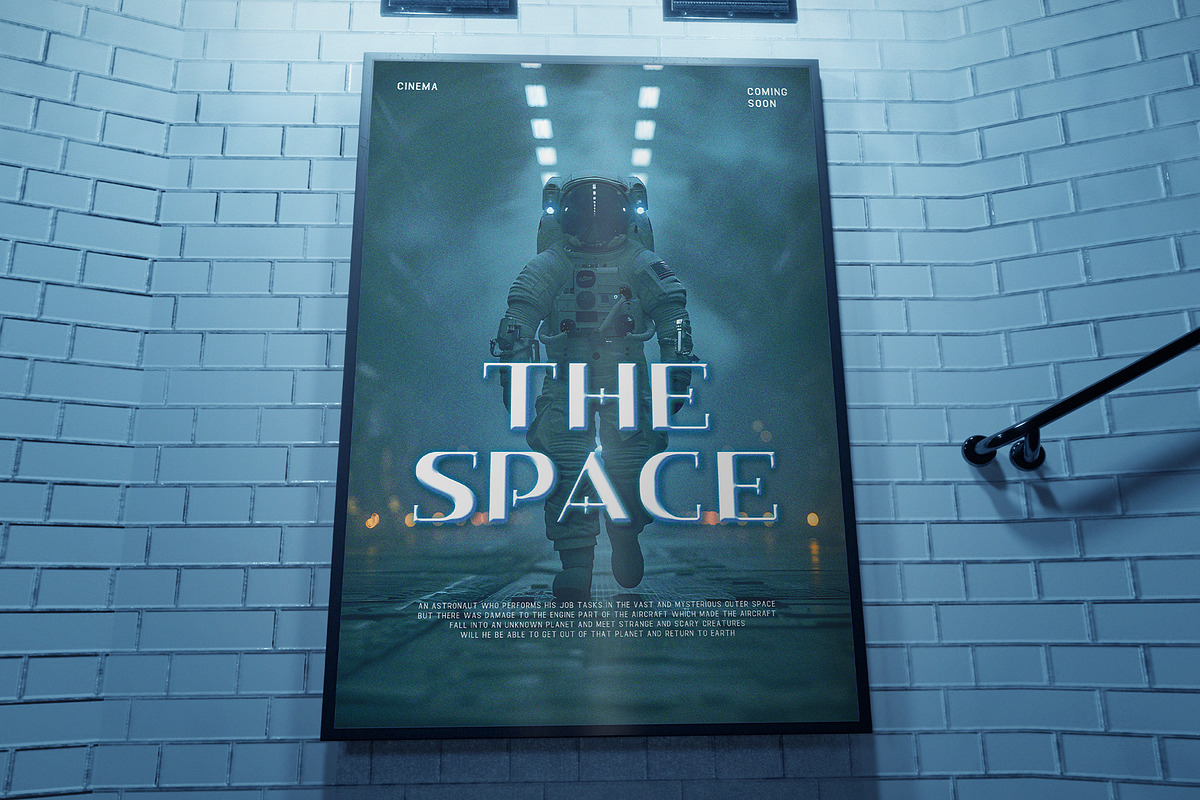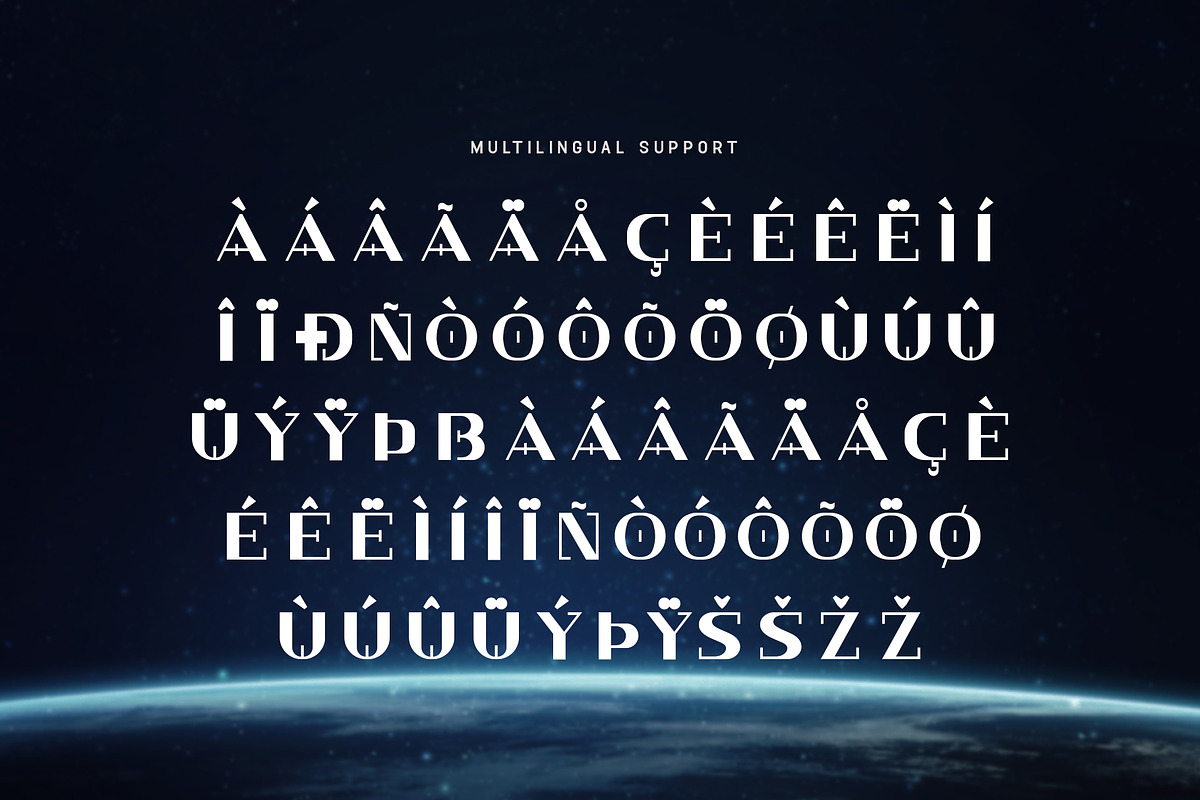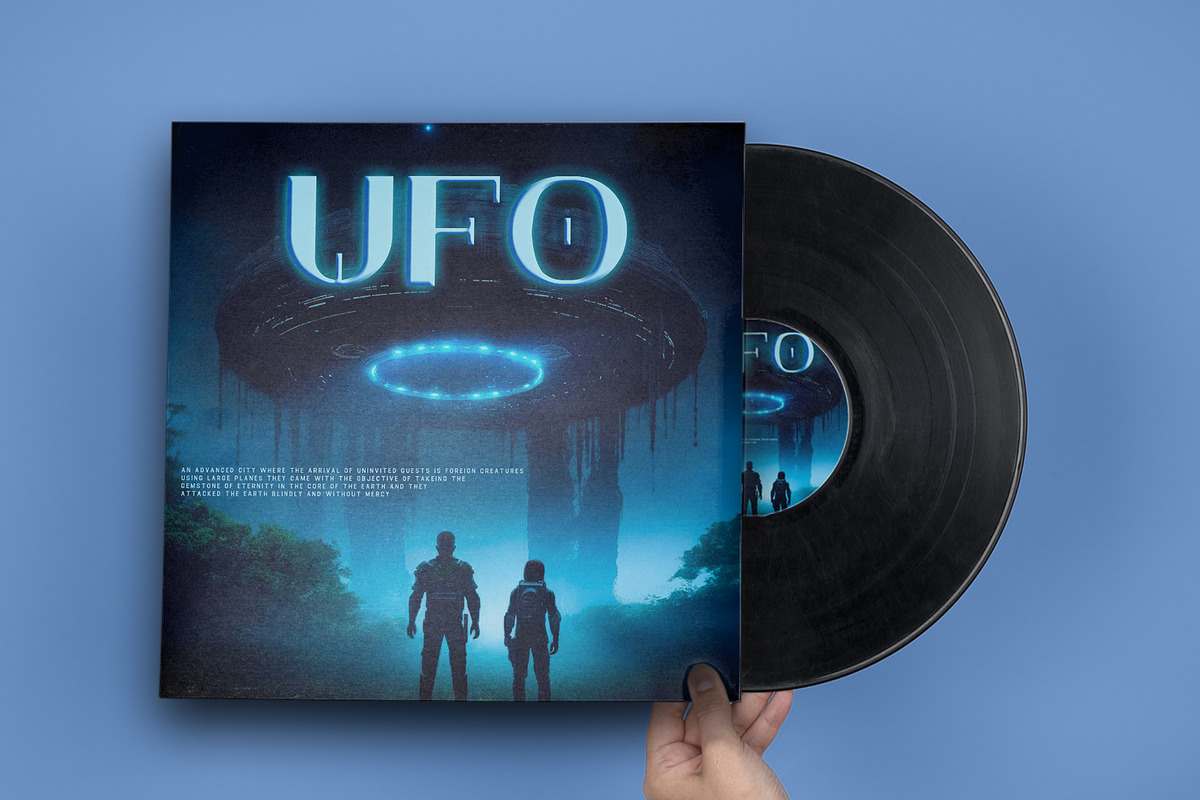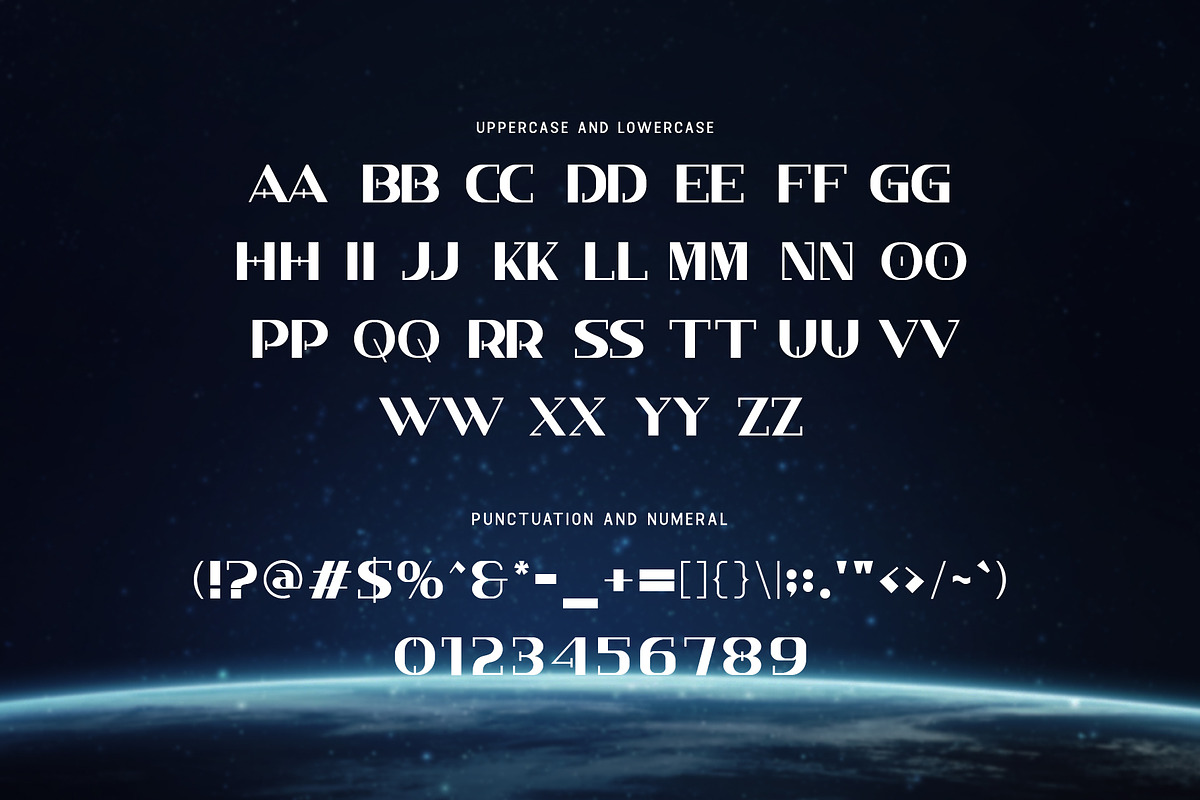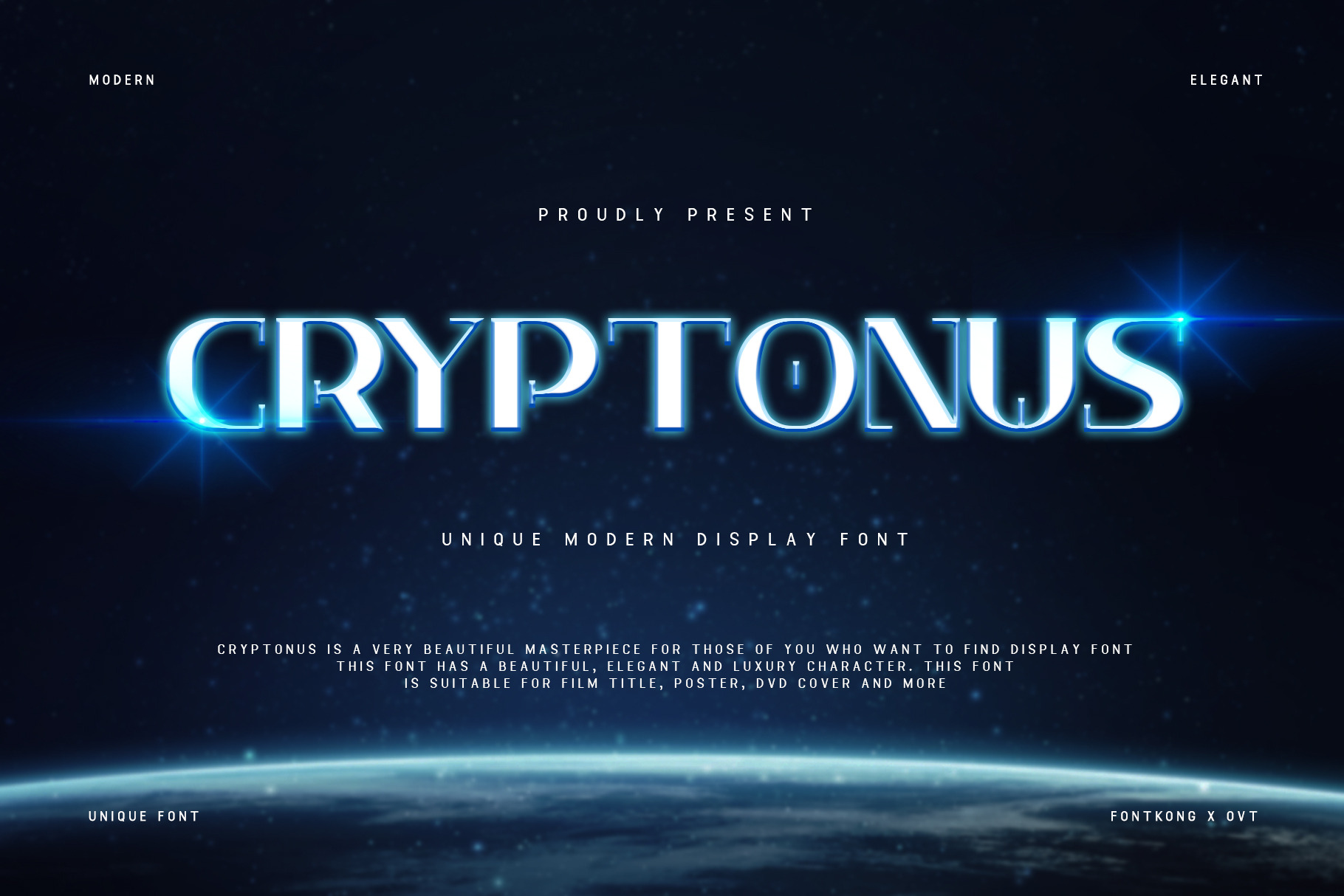
Cryptonus - Unique Modern Display Font
Introducing "Cryptonus," a unique modern display font designed to bring bold creativity and a futuristic edge to your projects. Perfect for graphic designers, advertisers, and creatives who want to make a striking impression, Cryptonus combines contemporary aesthetics with distinctive character shapes to deliver a font that truly stands out.
Ideal for posters, headlines, logos, and branding materials, Cryptonus’s cutting-edge design ensures your message is conveyed with clarity and impact. Each character is meticulously crafted to provide a clean, sharp look that captures attention, making it perfect for projects where readability and visual appeal are paramount.
The "Cryptonus" font includes a comprehensive set of uppercase and lowercase letters, numbers, and punctuation marks, offering versatility and flexibility for various design applications. Whether you're developing futuristic advertisements or crafting unique brand identities, Cryptonus enhances your work with its bold and innovative typography.
Transform your designs with Cryptonus, a unique modern display font that unlocks bold creativity and futuristic style.